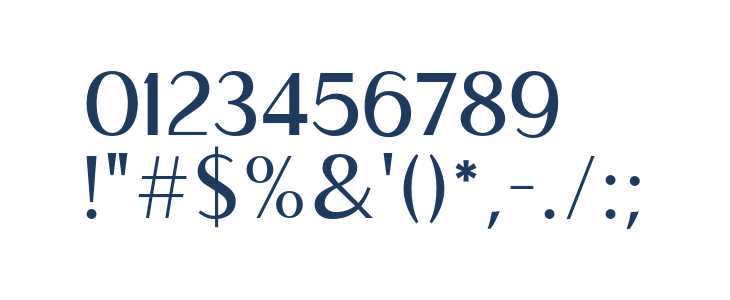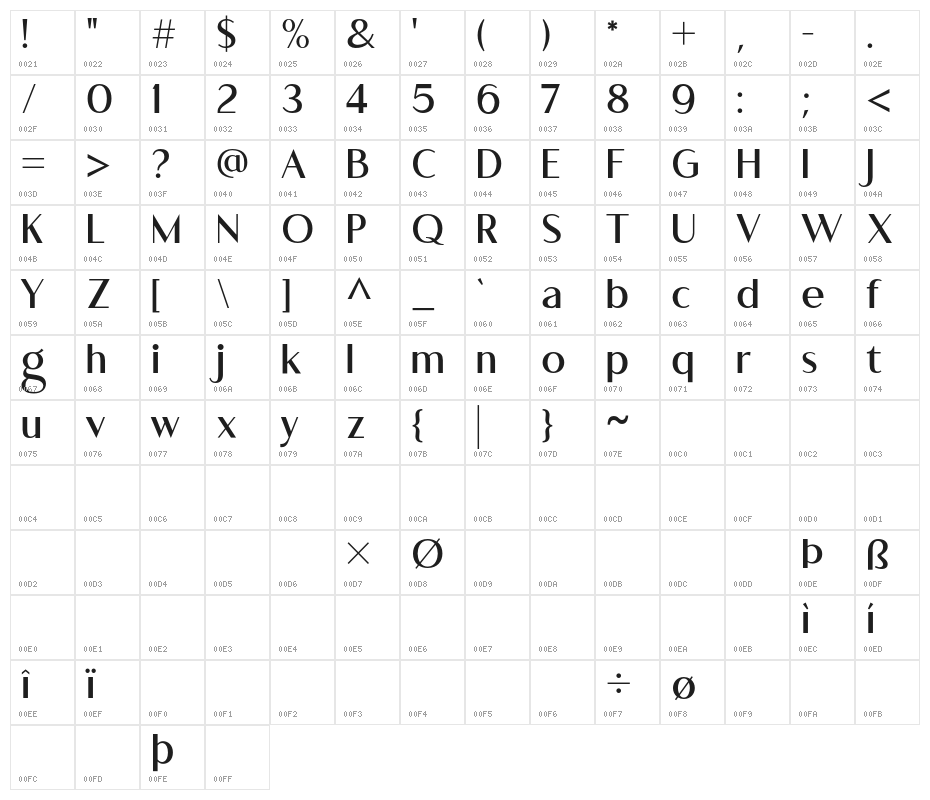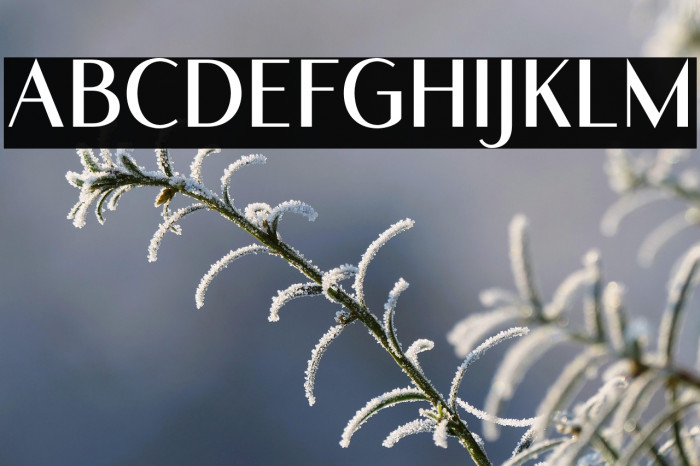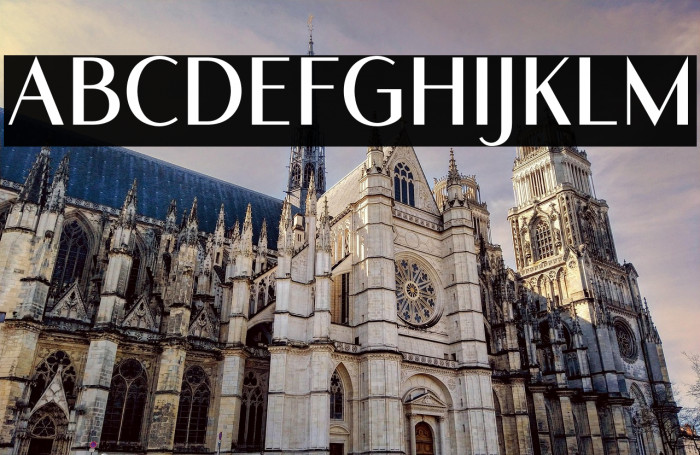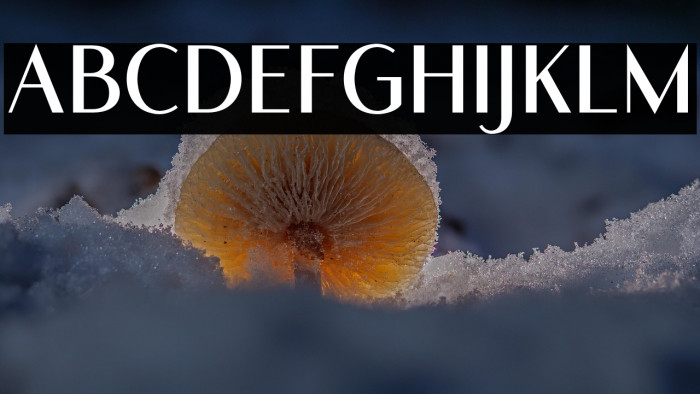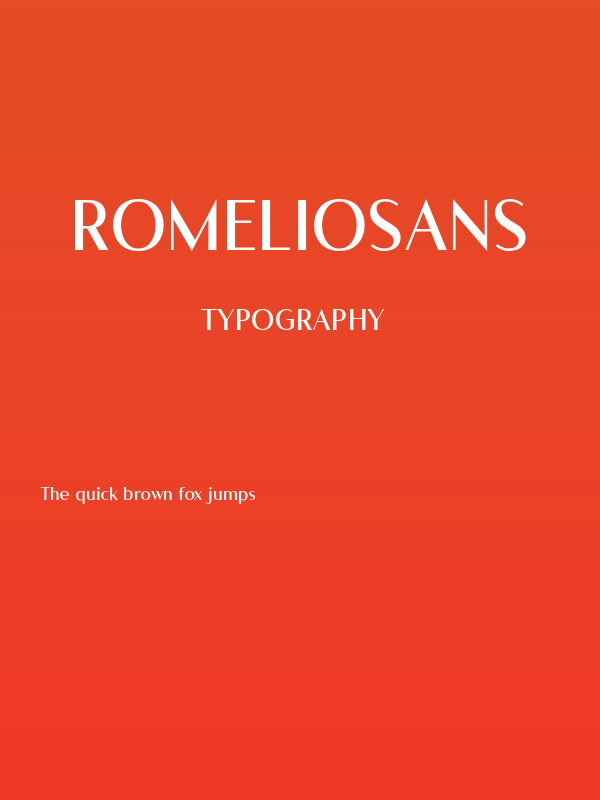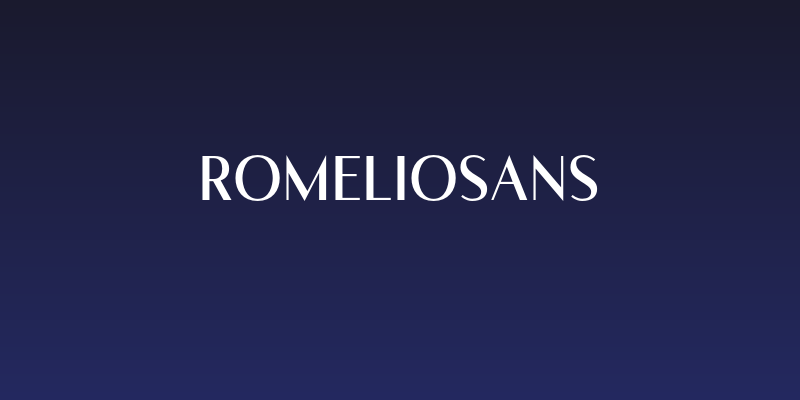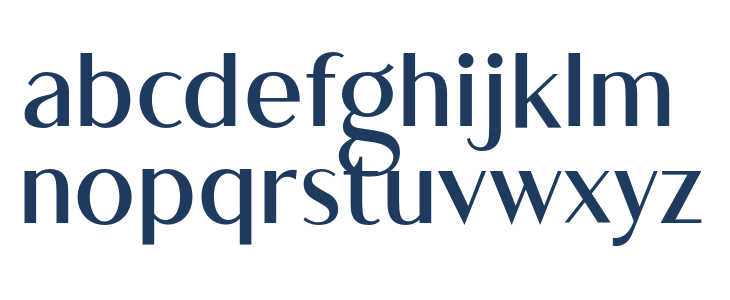
RomelioSans Font
RomelioSans Description
This font presents a clean and modern aesthetic with a sans-serif style. The uppercase letters are bold and assertive, while the lowercase letters maintain a consistent and harmonious flow. The numerals are clear and easily distinguishable, making them suitable for a variety of applications. Special characters are well-defined, adding versatility to the font. The overall design is sleek and professional, suitable for both digital and print media. Its balanced proportions and smooth curves contribute to its readability and appeal.